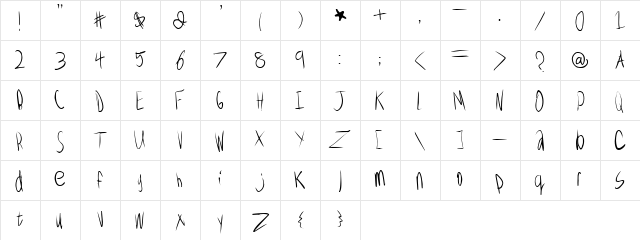
Wolves, Lower Regular
Wolves, Lower is a composed and adaptable typeface that performs quietly and consistently across a wide range of design contexts.